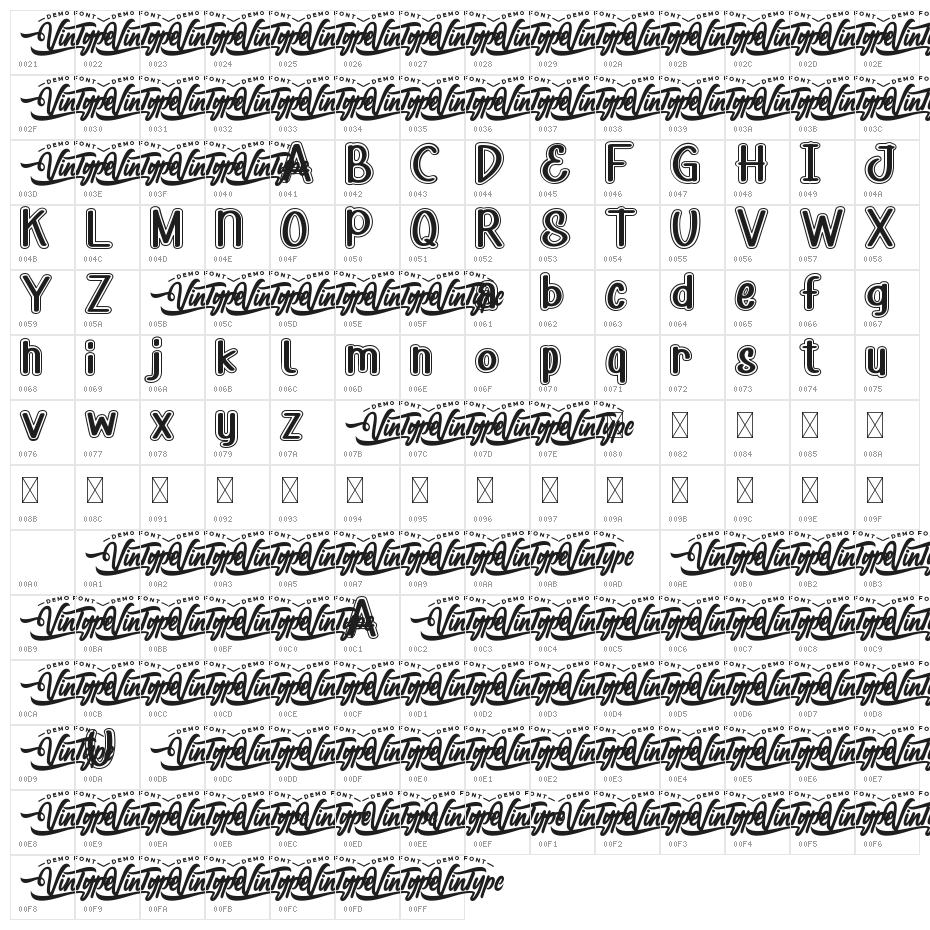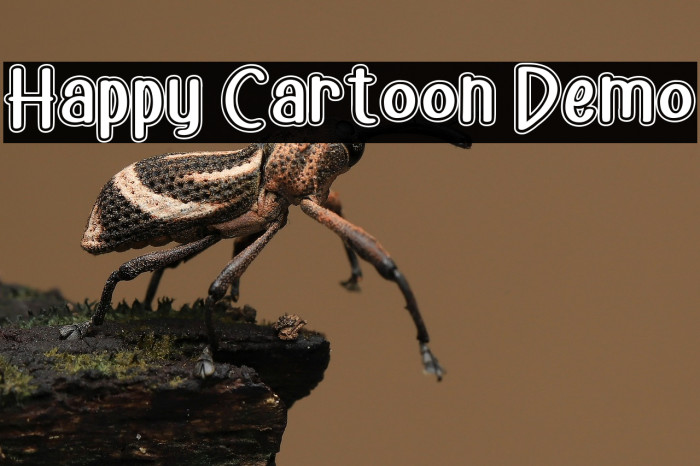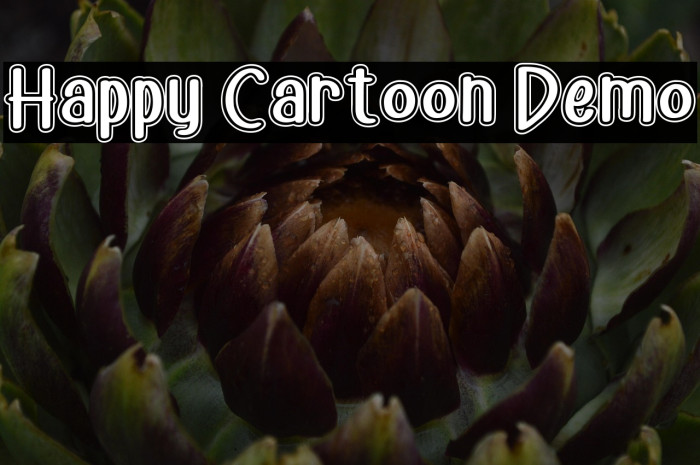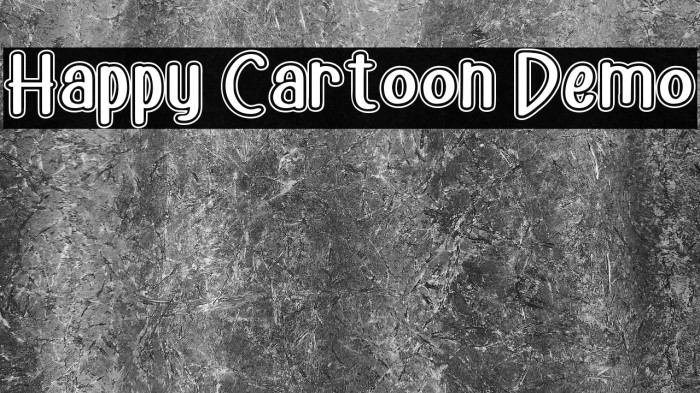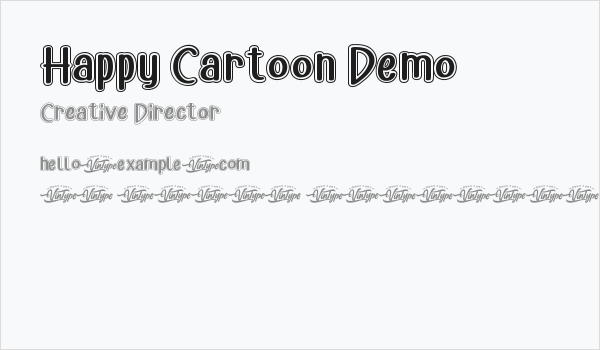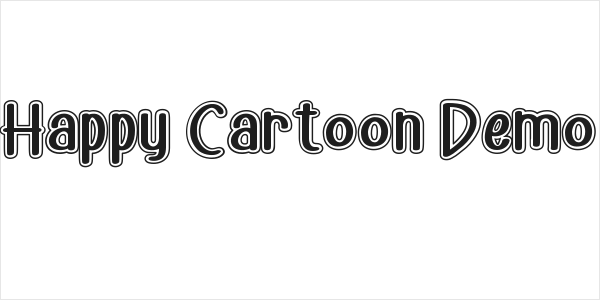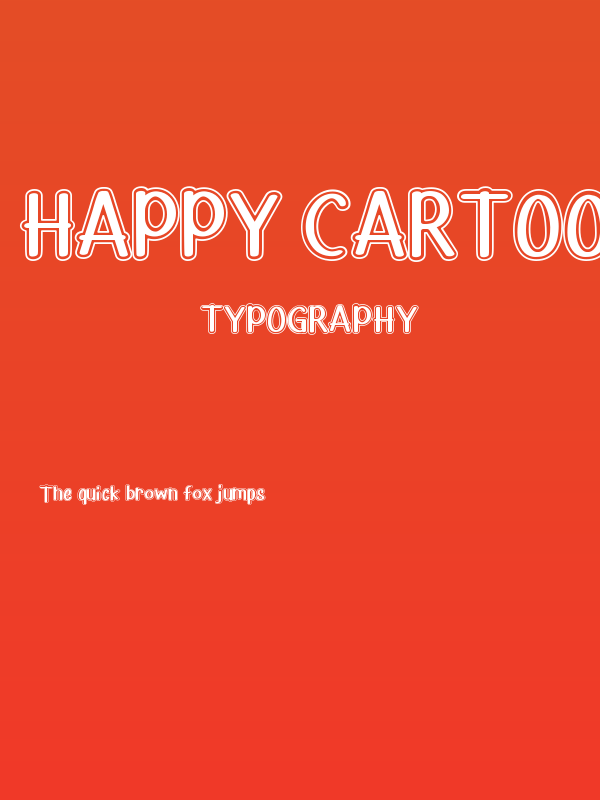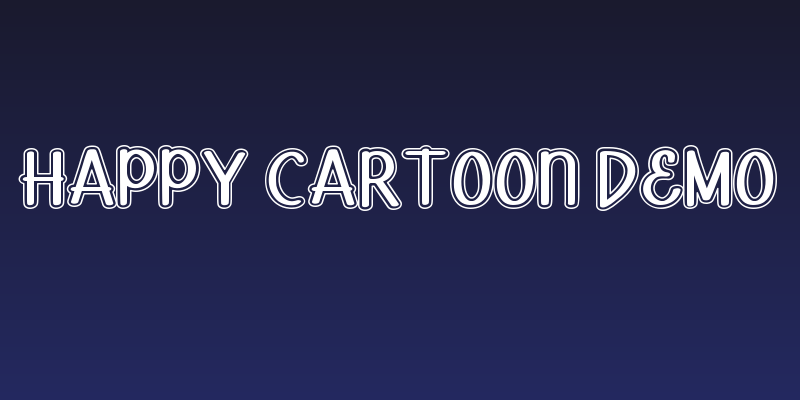
Happy Cartoon Demo Font
Happy Cartoon Demo Description
This playful and bold font features a cartoonish style with thick outlines and rounded edges, giving it a friendly and approachable appearance. The uppercase and lowercase letters maintain a consistent width, creating a harmonious look. The font's design is characterized by its bubble-like forms and exaggerated curves, making it ideal for projects that require a fun and whimsical touch. The characters are well-spaced, ensuring readability while maintaining a lively aesthetic. Its unique style is perfect for capturing attention and conveying a sense of joy and creativity.
| Proposed Projects | Ideal for children's books, comic strips, playful branding, and party invitations. |